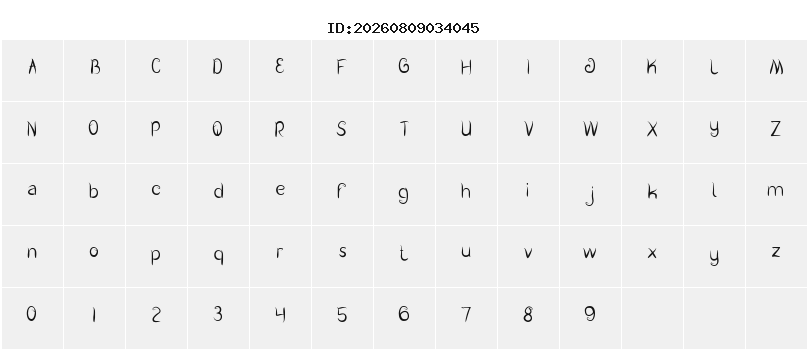
• Font Name: Photography
About Photography.ttf
Photography.ttf is a modern, elegant sans-serif font designed for ultimate readability and visual harmony. Perfect for branding, headlines, web design, and print materials.